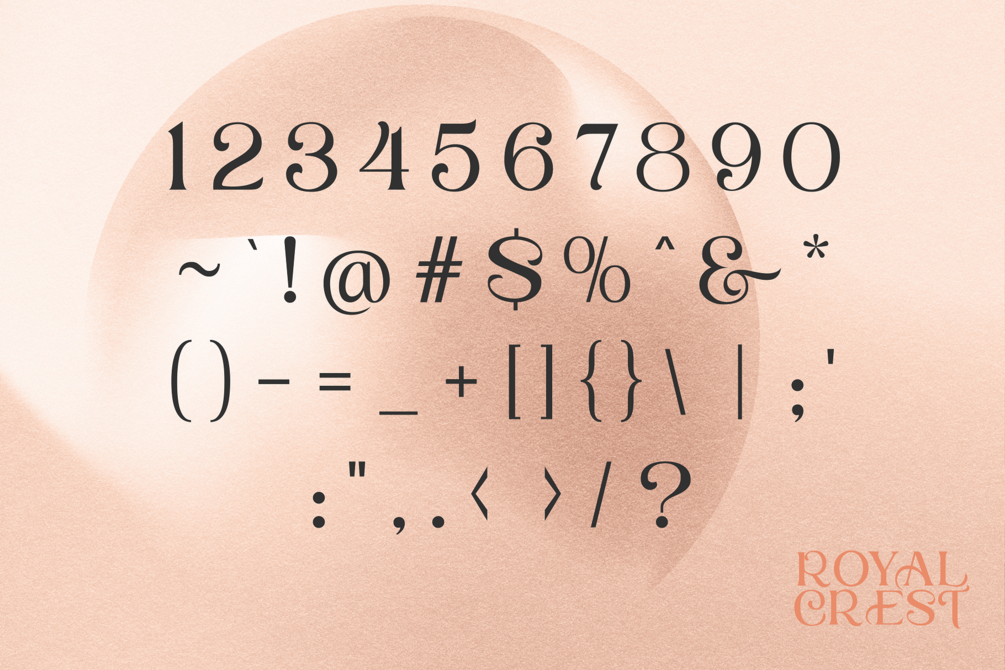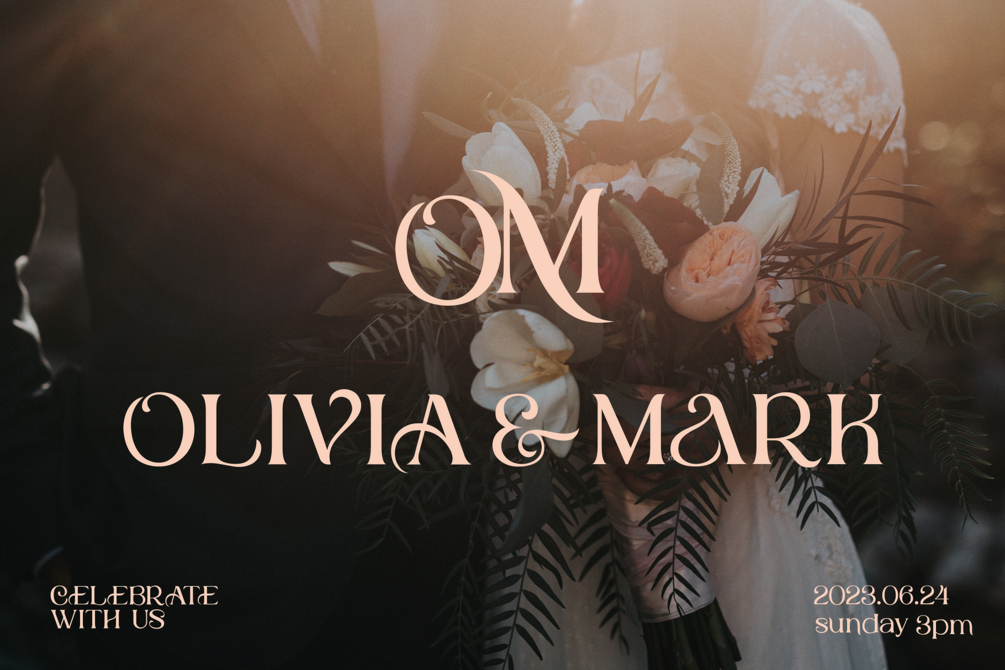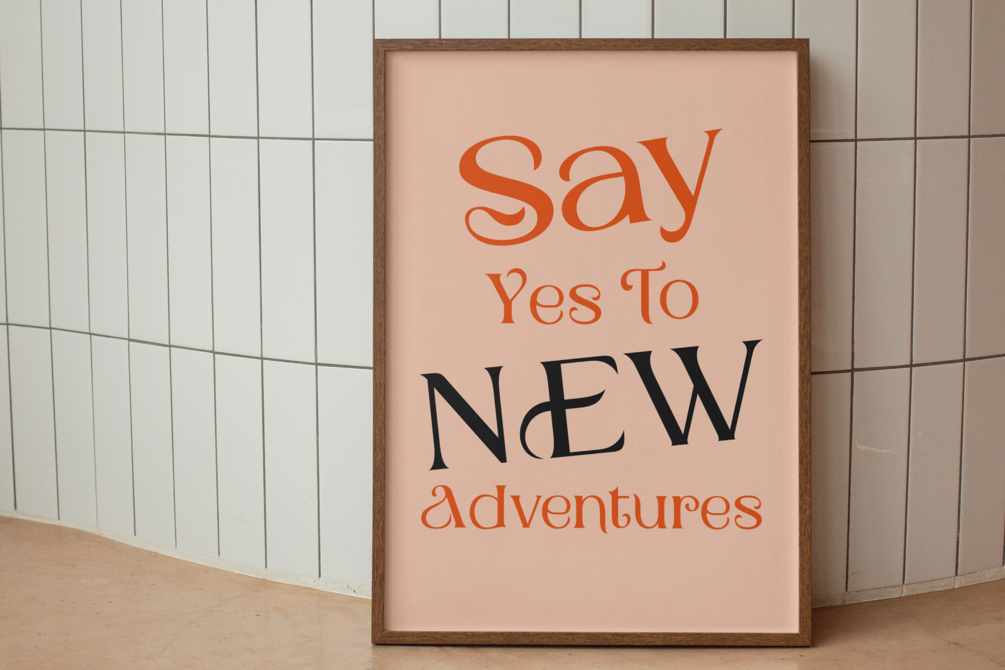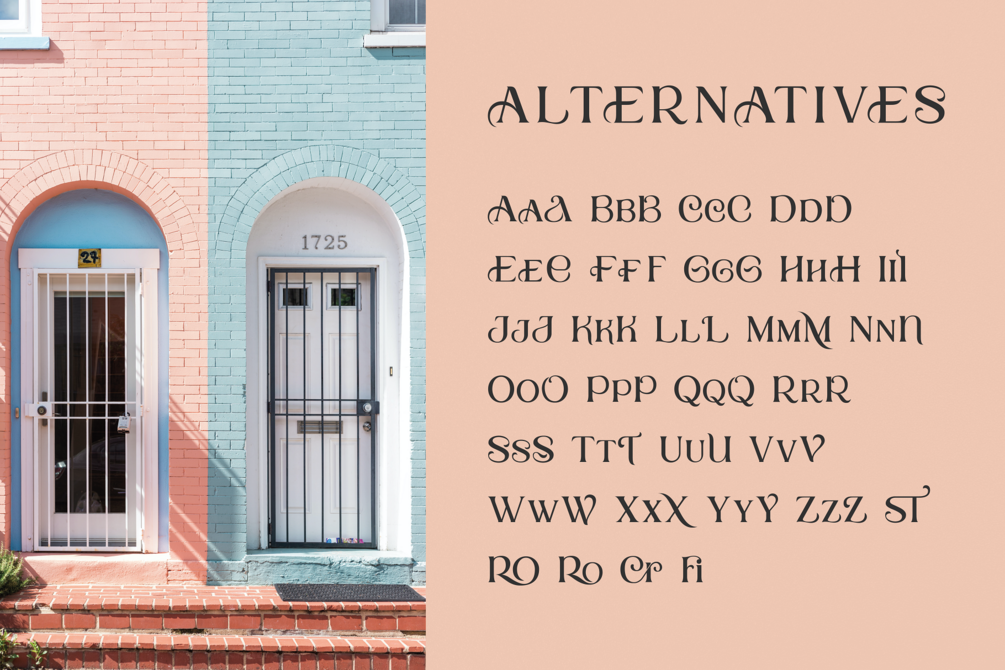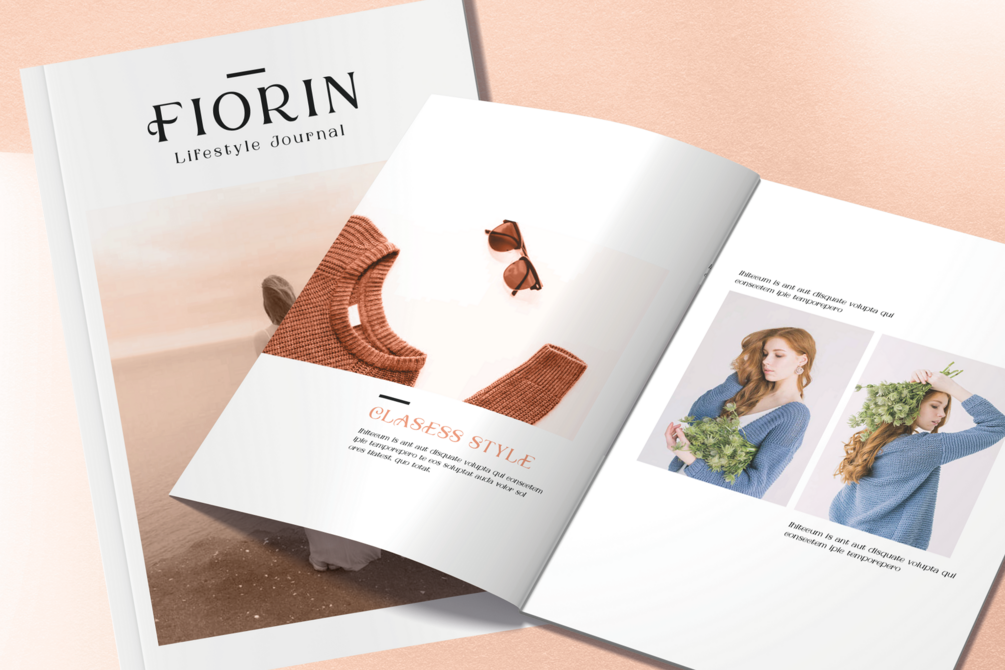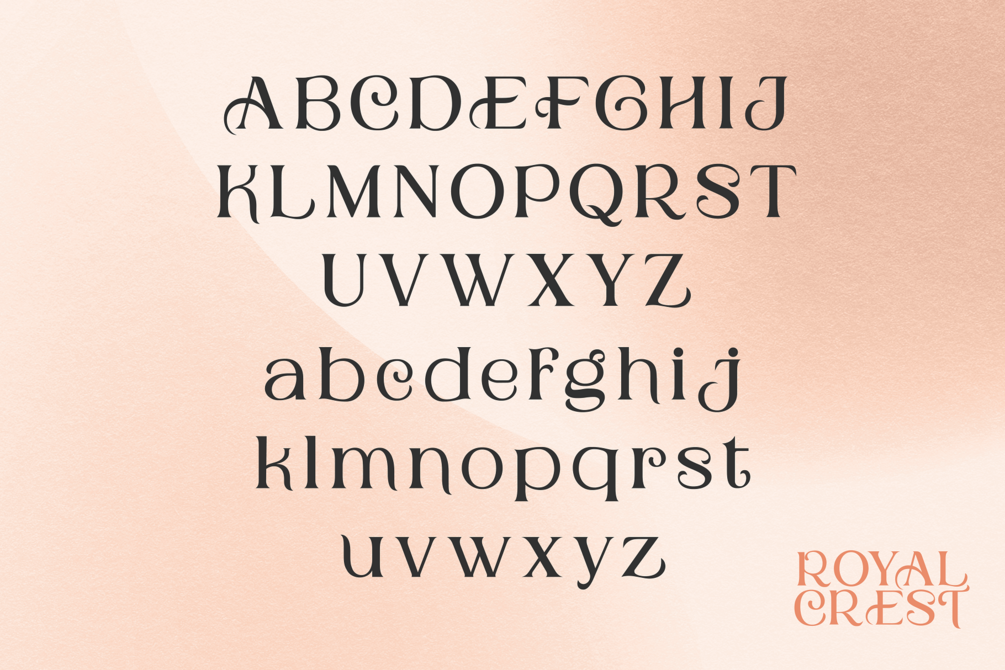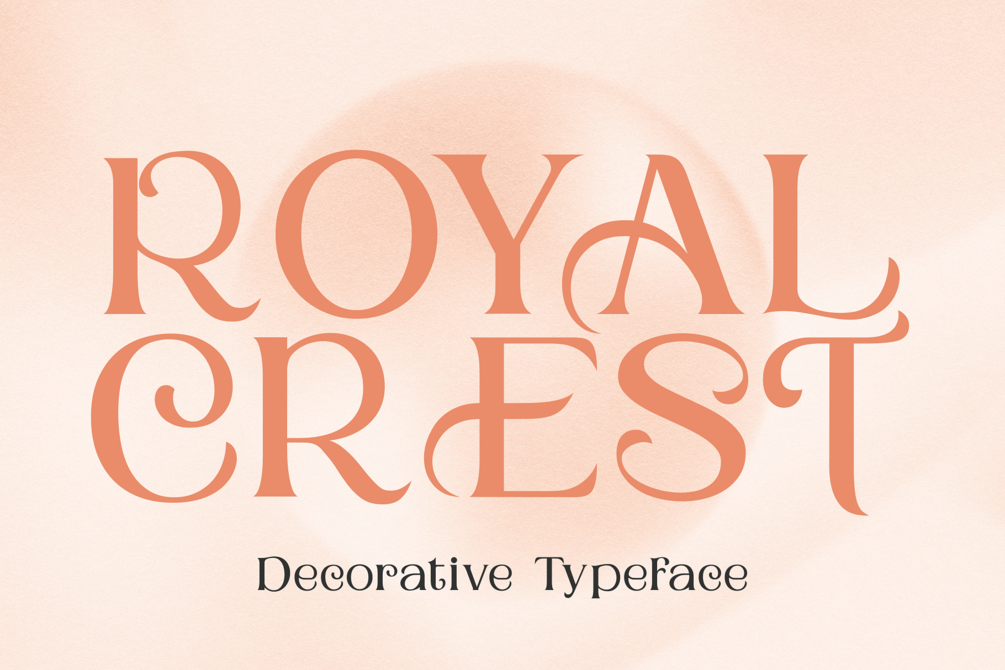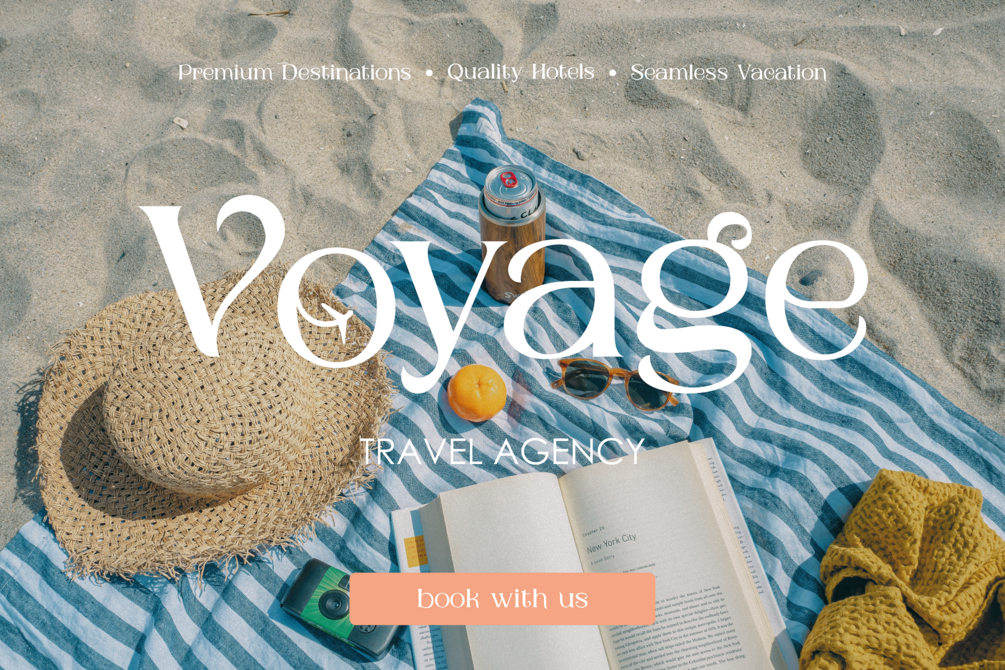
Royal Crest - Decorative Typeface
Royal Crest is an exquisite serif typeface that exudes elegance and modernity. Its beautifully designed characters are ornate and decorative, making it perfect for high-end design projects that require a touch of luxury.
With its extensive set of alternative characters, Royal Crest offers designers the flexibility and creativity they need to create truly unique designs. Whether it's a logo, wedding invitation, a website, or a print ad, Royal Crest is sure to make a statement and leave a lasting impression on viewers. Its versatility and beauty make it a must-have for any designer's toolkit.